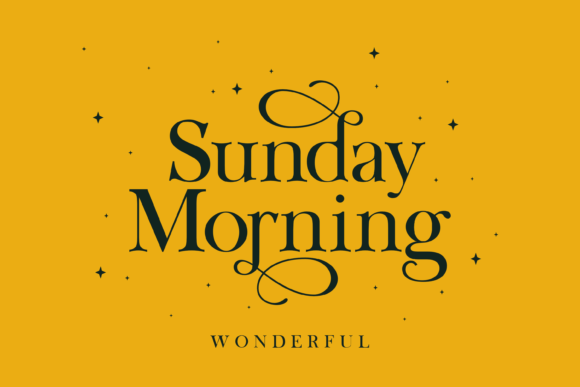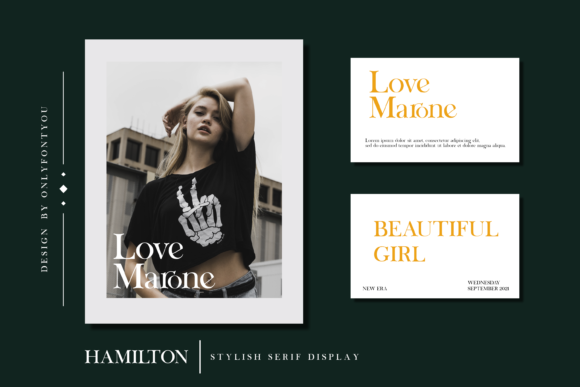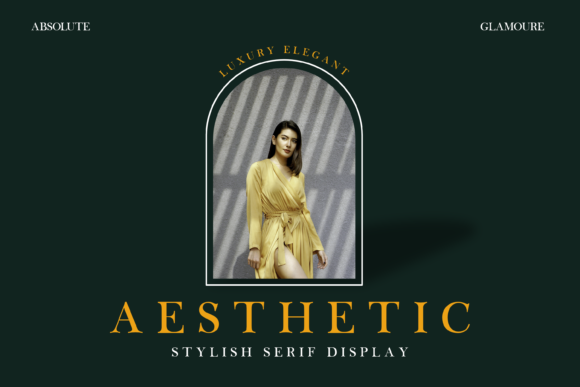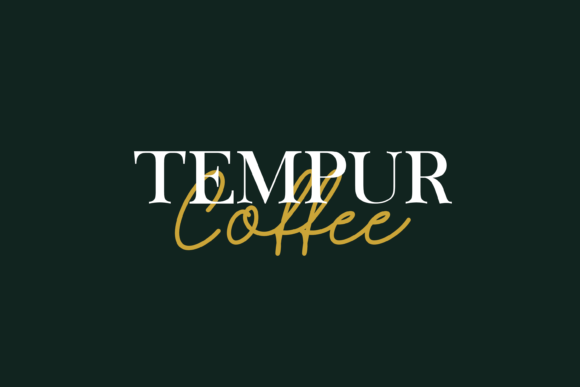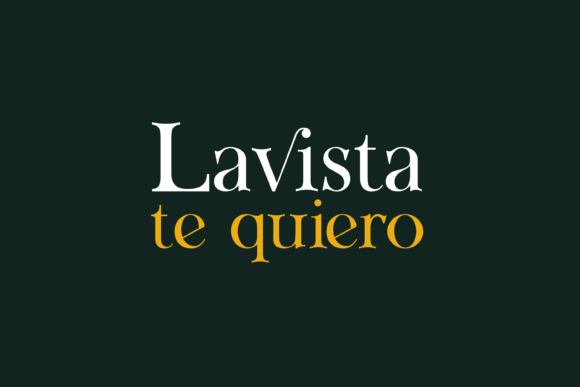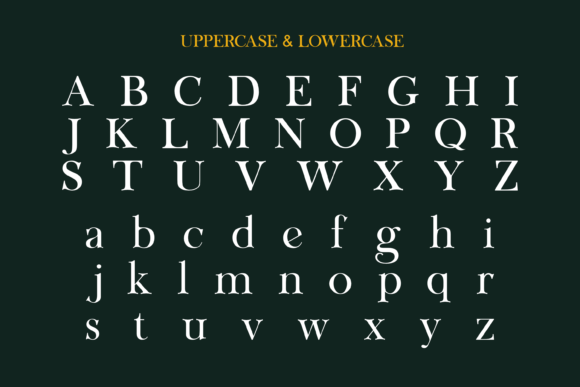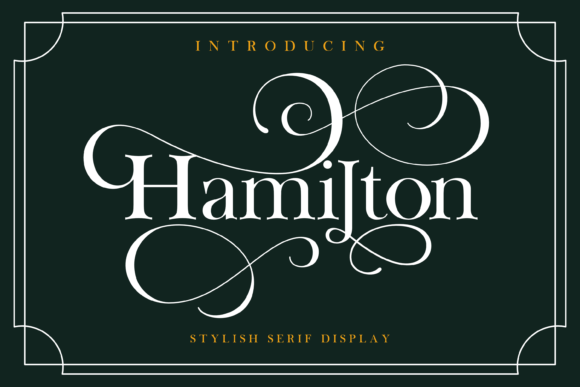
Introducing Hamilton Font: Elevate Your Designs with Elegance and Sophistication
In the world of typography, a font can make all the difference in the aesthetic and effectiveness of a design. For those seeking a stylish serif font that exudes elegance and sophistication, look no further than Hamilton Font. This beautifully crafted font is designed to elevate your designs, whether you’re working on a branding project, crafting a website, or creating engaging print materials.
What Makes Hamilton Font Stand Out?
Hamilton Font is not just another serif font; it’s a meticulously designed typeface that stands out for its neat craftsmanship and high level of detail. Its stylish appearance is perfect for designers and crafters looking to add a touch of class and refinement to their work. Here are some key features that make Hamilton Font a must-have in your typography arsenal:
• Stylish Serif Design: Hamilton Font boasts a classic serif design with a modern twist, making it versatile enough to be used in a wide range of design projects.
• Neatly Crafted and Highly Detailed: The attention to detail in Hamilton Font is evident in its clean lines, balanced proportions, and elegant curves, ensuring that your designs look polished and professional.
• PUA Encoded for Easy Access: Hamilton Font is PUA (Private Use Area) encoded, which means you can easily access all glyphs and swashes. This feature is particularly useful for designers who want to experiment with different typographic elements without the hassle of complicated font management.
Applications of Hamilton Font
The versatility of Hamilton Font makes it suitable for a variety of design applications. Here are some ways you can use this elegant font to enhance your projects:
• Branding and Logotypes: Create memorable and sophisticated brand identities with Hamilton Font. Its stylish serifs and elegant appearance make it perfect for logos, wordmarks, and typographic branding elements.
• Web Design: Enhance your website’s typography with Hamilton Font. Its readability and aesthetic appeal make it an excellent choice for headings, titles, and even body text.
• Print Design: Whether you’re working on brochures, posters, or business cards, Hamilton Font can add a level of sophistication and elegance to your print materials.
• Packaging Design: Make your product packaging stand out with Hamilton Font. Its stylish appearance can help your brand leave a lasting impression on customers.
Tips for Getting the Most Out of Hamilton Font
To truly leverage the potential of Hamilton Font, consider the following tips:
• Experiment with Swashes: Take advantage of the PUA encoding to explore different swashes and glyphs. This can add a unique touch to your designs and help you create distinctive typographic elements.
• Mix and Match Font Sizes: Play with different font sizes to create visual hierarchy in your designs. Hamilton Font’s elegant appearance works well across various sizes, from large headings to smaller body text.
• Combine with Other Fonts: Don’t be afraid to pair Hamilton Font with other typefaces to create contrast and interest in your designs. Its classic serif design makes it a versatile match for a wide range of fonts.
Hamilton Font is a stylish serif font that offers a perfect blend of elegance, sophistication, and versatility. Its meticulous design, PUA encoding, and wide range of applications make it an invaluable asset for designers and crafters looking to elevate their projects. Whether you’re working on branding, web design, print materials, or packaging, Hamilton Font is sure to enhance your work and leave a lasting impression on your audience.